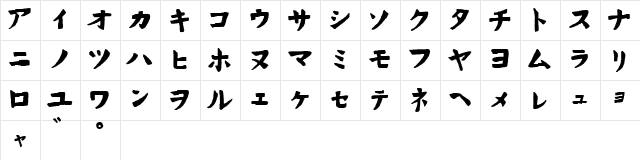
Hand Drawn Wasabi Hand Drawn Wasabi
Design Context for Hand Drawn Wasabi Typeface
Hand Drawn Wasabi flows with the natural rhythm of handwritten lettering, making it ideal for designs that call for warmth and personal expression.